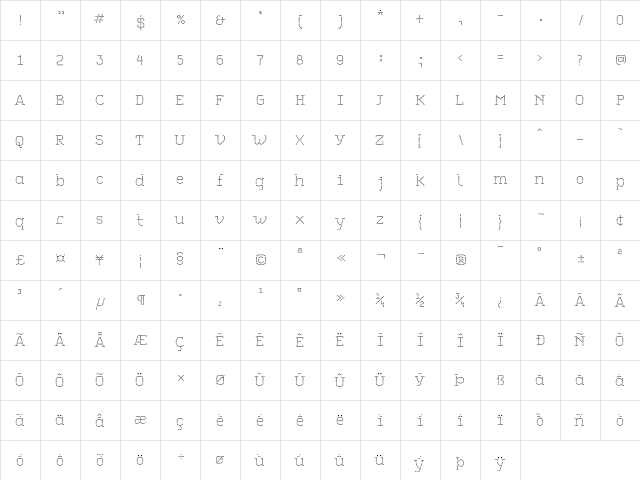
dbpoints Regular
| Designer | beate |
Design Context for dbpoints Typeface
dbpoints is a composed and adaptable typeface that performs quietly and consistently across a wide range of design contexts.